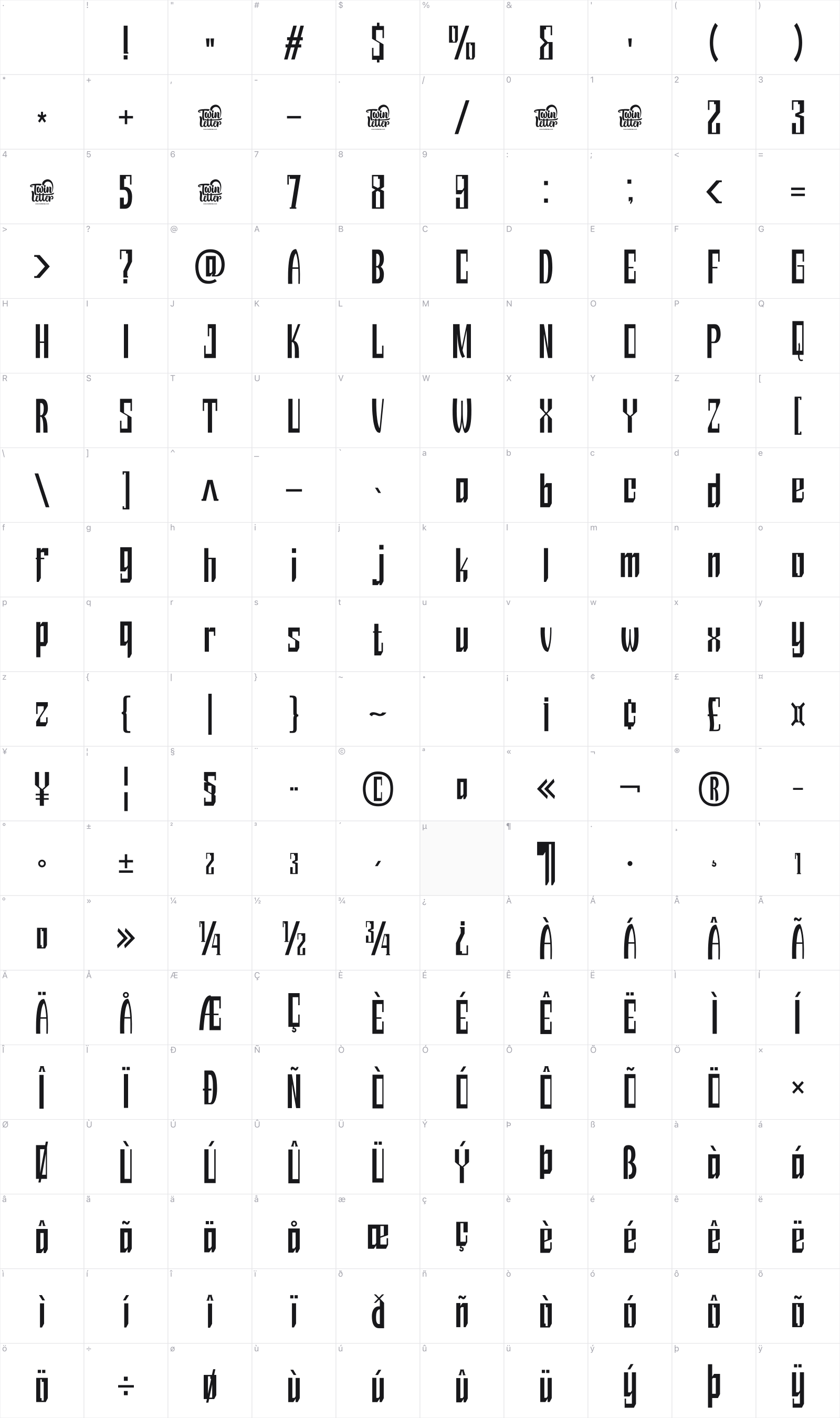
Koondim
Koondim is a heavily condensed retro display font with angular geometry and a bold industrial character. Its tall, compressed proportions and sharp notched strokes draw from Art Deco poster lettering with a hint of blackletter structure. Strong at large sizes for headlines, packaging, and any project that needs a vintage-tough edge.